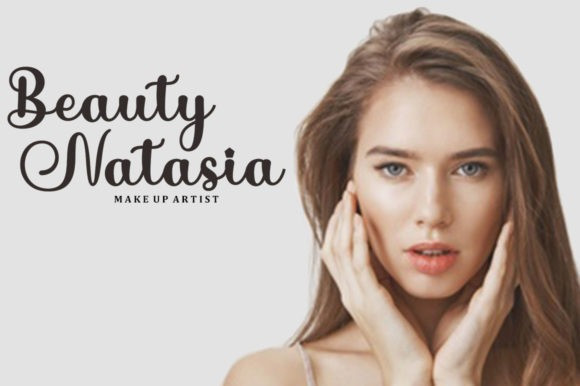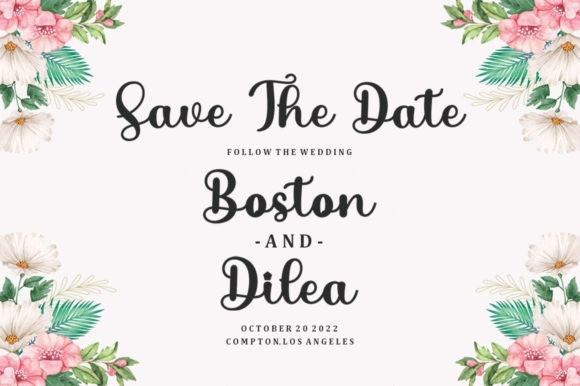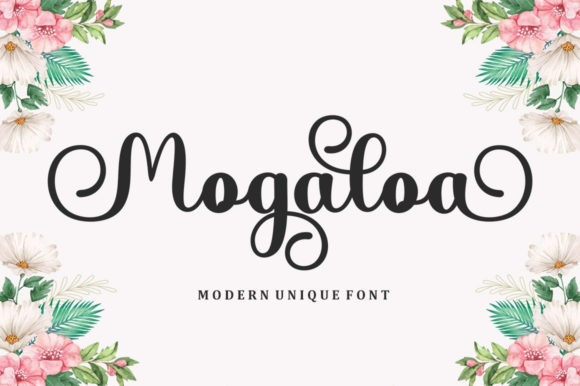
Mogaloa Font
Mogaloa Calligraphy Font is an incredibly unique handwritten font. Masterfully designed to become a true favorite, this font has the potential to bring each of your creative ideas to the highest level!